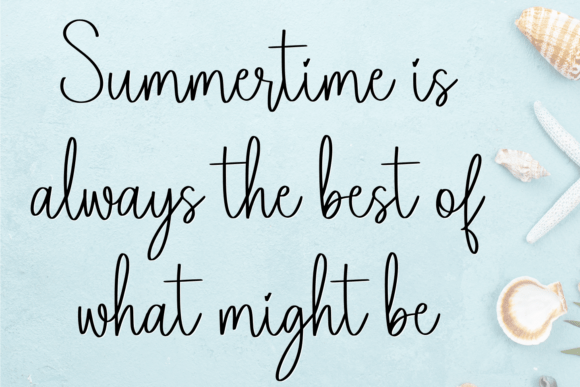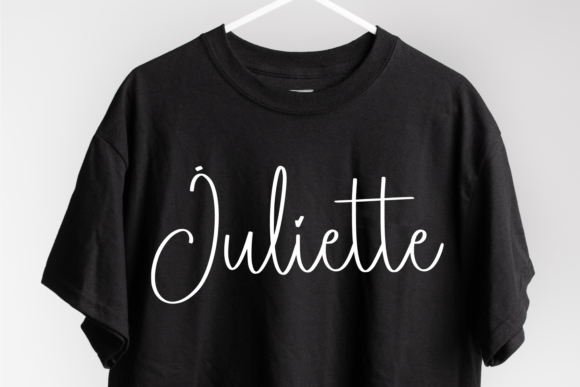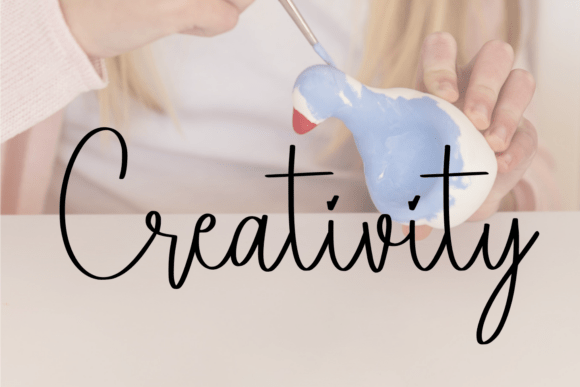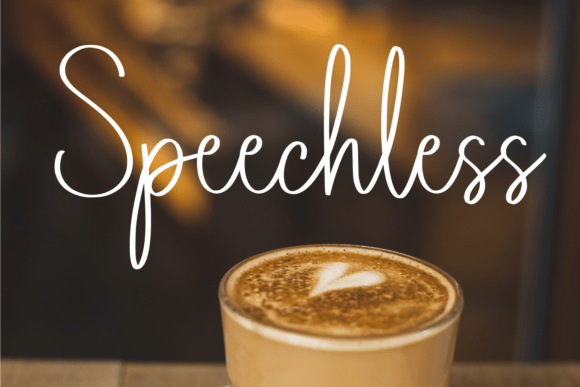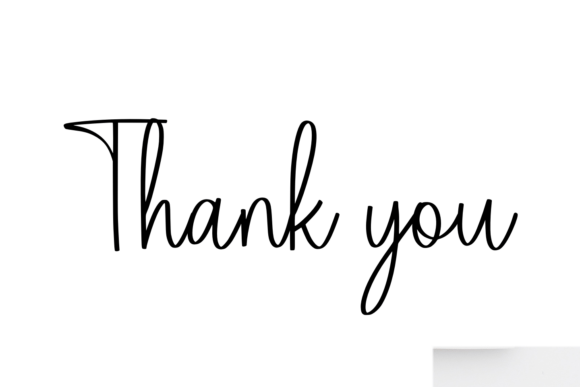
Discover the Elegance of Darling Font: A Timeless Calligraphy Script
In the world of typography, few fonts capture the essence of elegance and charm as beautifully as Darling. This simple yet sophisticated calligraphy font is designed to bring a touch of romance and refinement to any design project. With its smooth curves and graceful flow, Darling embodies the beauty of handwritten script, making it an ideal choice for a variety of creative applications.
The Characteristics of Darling Font
Darling is more than just a font; it’s a statement of style and sophistication. Its key characteristics include:
- Smooth Curves: Darling’s curves are meticulously crafted to provide a seamless and fluid look, reminiscent of traditional calligraphy.
- Graceful Flow: The font’s letters transition smoothly into one another, creating a harmonious and elegant appearance.
- Versatility: Darling is suitable for a wide range of design projects, from wedding invitations and branding to social media graphics and love notes.
- Romantic Touch: The font adds a delicate, romantic flair to any design, making it perfect for projects that require a personal and heartfelt touch.
Perfect for Wedding Invitations and Branding
Wedding invitations and branding materials are among the most popular uses for Darling. The font’s elegant and refined appearance makes it an excellent choice for:
- Wedding Invitations: Darling adds a touch of sophistication and romance to wedding invitations, setting the tone for a beautiful and memorable event.
- Branding: For businesses that want to convey a sense of luxury and elegance, Darling is an excellent choice. It can be used for logos, packaging, and marketing materials to create a cohesive and high-end brand image.
Enhance Your Social Media and Love Notes with Darling
Darling is not just limited to print design. It’s also perfect for digital applications, such as social media graphics and love notes. The font’s digital version retains its elegance and charm, making it suitable for:
- Social Media Graphics: Use Darling to create eye-catching social media graphics, such as quotes, announcements, and promotional materials, that stand out from the crowd.
- Love Notes: Add a personal touch to your digital love notes and messages with Darling. The font’s romantic and elegant appearance makes it perfect for expressing your feelings in a unique and beautiful way.
Why Choose Darling Font?
With so many fonts available, why choose Darling? Here are a few reasons why Darling stands out:
- Timeless Appeal: Darling’s classic and elegant design ensures that it will remain a timeless choice for years to come.
- Easy to Read: Despite its elegant appearance, Darling is easy to read, making it suitable for both headings and body text.
- Versatile: Darling can be used for a wide range of design projects, from formal to informal applications.
Darling font is a beautiful and elegant calligraphy script that can elevate any design project. Its smooth curves, graceful flow, and romantic touch make it perfect for wedding invitations, branding, social media graphics, and love notes. Whether you’re a designer or a crafter, Darling is an excellent choice for adding a touch of sophistication and charm to your creations. So why not give Darling a try and experience the beauty of timeless calligraphy for yourself?
Let Darling be your go-to script for creating heartfelt and memorable designs that will leave a lasting impression on your audience.